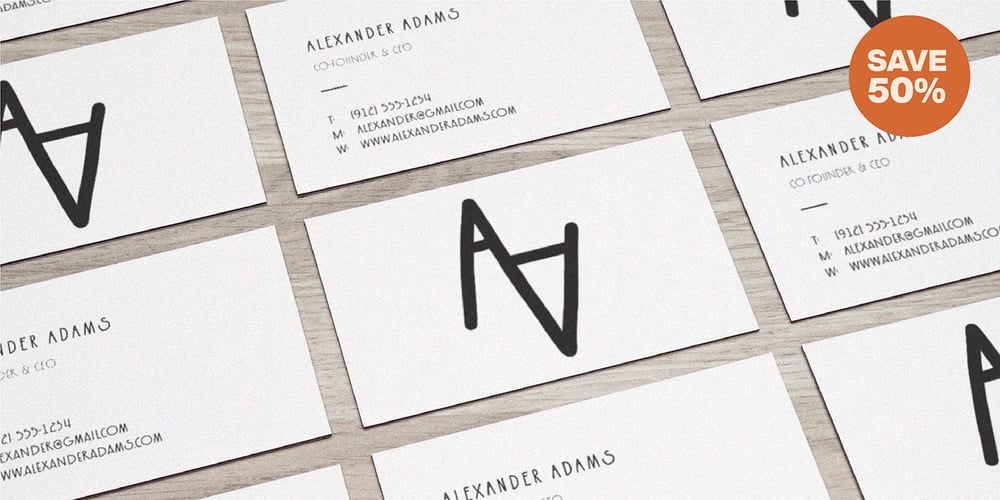
Kenzira
Kenzira font
Kenzira Font Family was designed by Muhammad Husni Haikal and published by Graphicfresh. Kenzira contains 4 styles and family package options. Kenzira – A Hand Drawn Art Deco Font and minimalist character! It’s perfect for logos, name card, magazine layouts, invitations, headers, or even large-scale artwork.